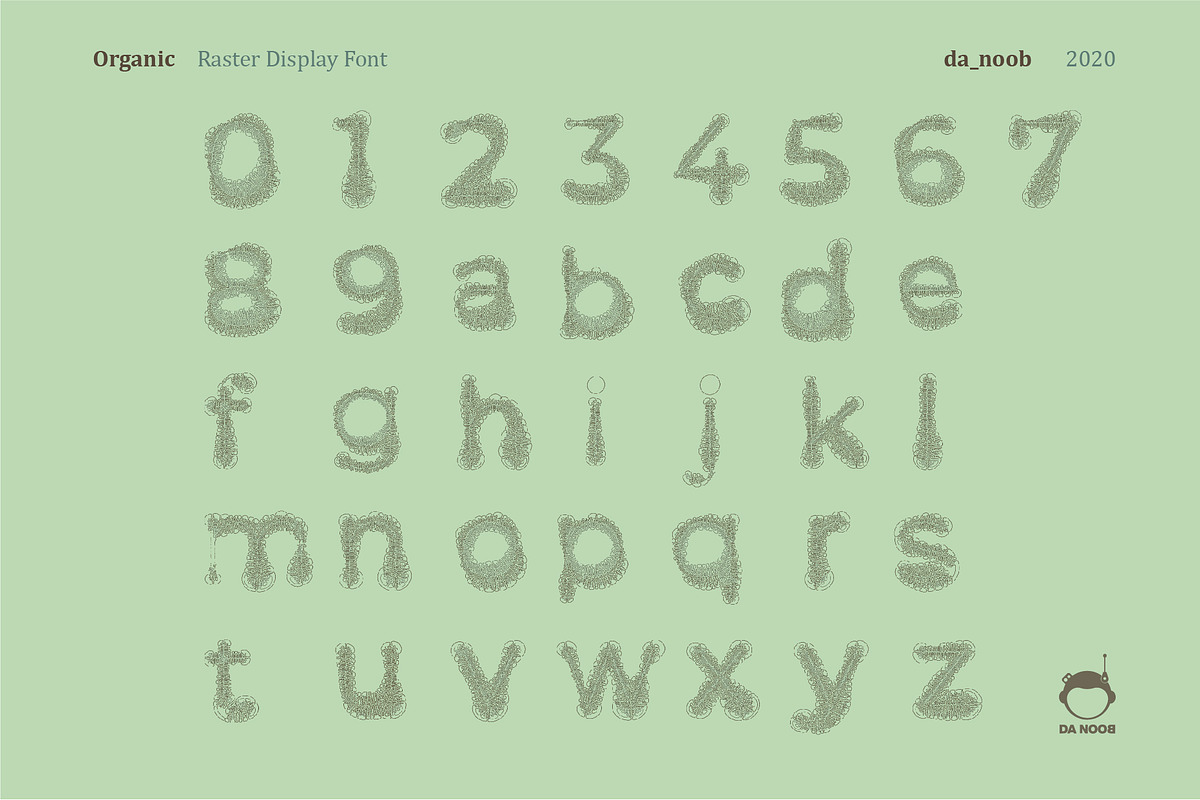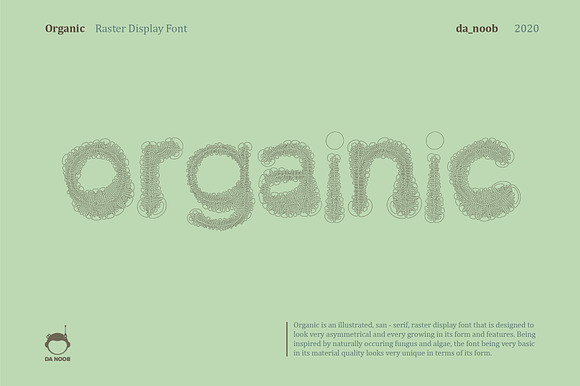
Organic - Raster display font
Organic is an illustrated, San - serif, raster display font that is designed to look very asymmetrical and every growing in its form and features. Being inspired by naturally occurring fungus and algae, the font being very basic in its material quality looks very unique in terms of its form.
Thought the font has distinct use cases depending on the creator, it can be best used for headings, short words and illustrative typographic projects.
PLEASE NOTE that this is a display font.
1. The font does not contain special characters and small alphabets.